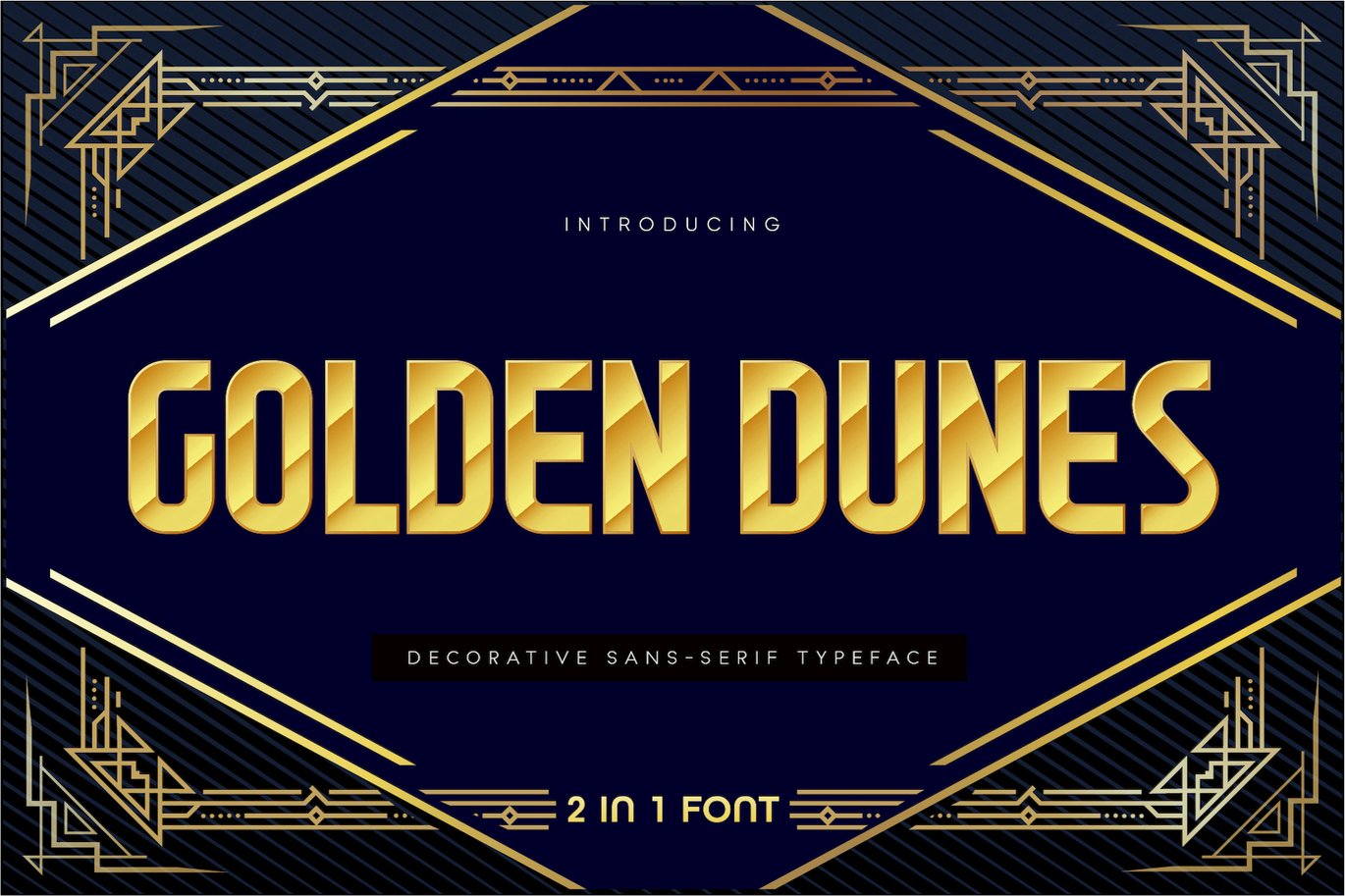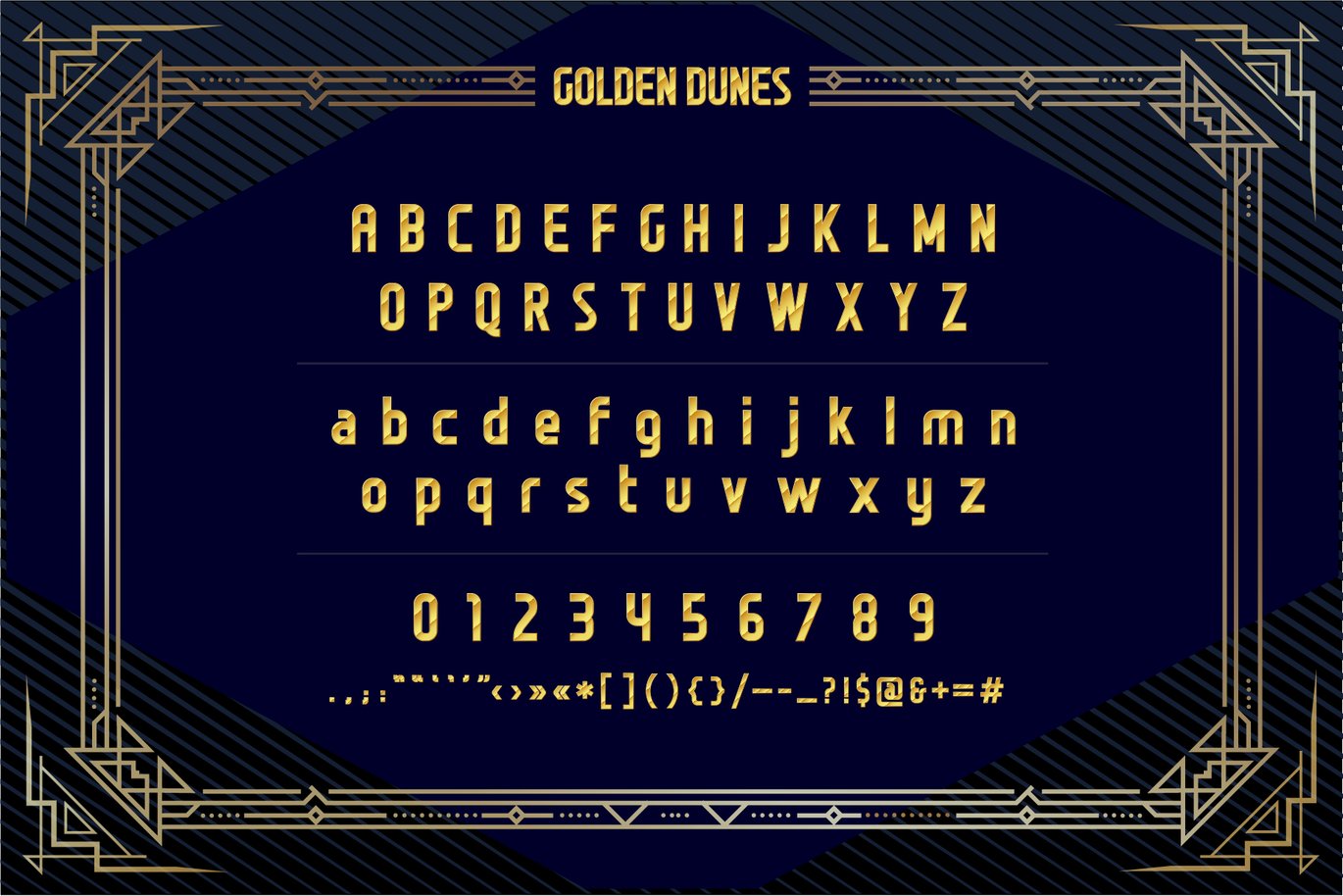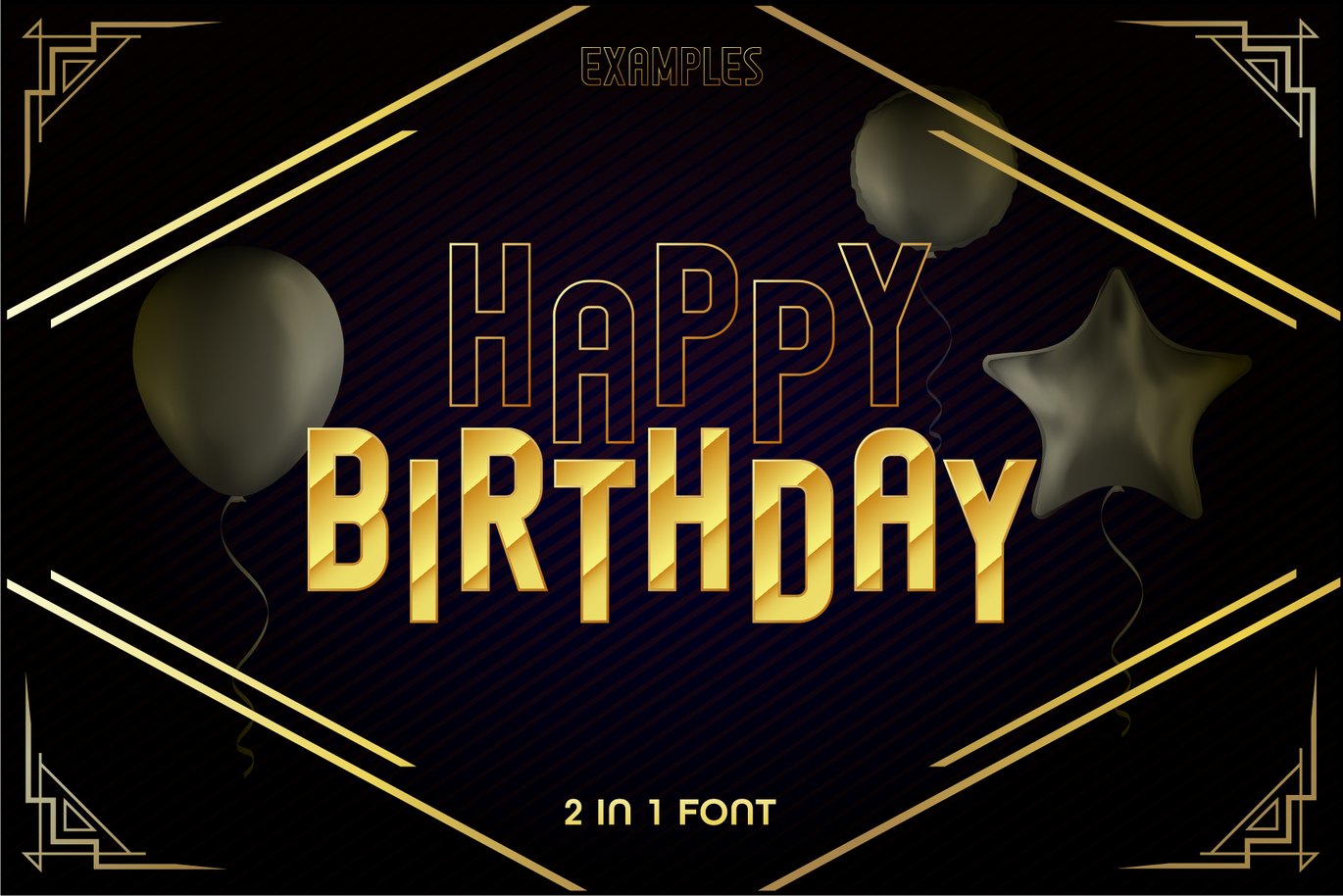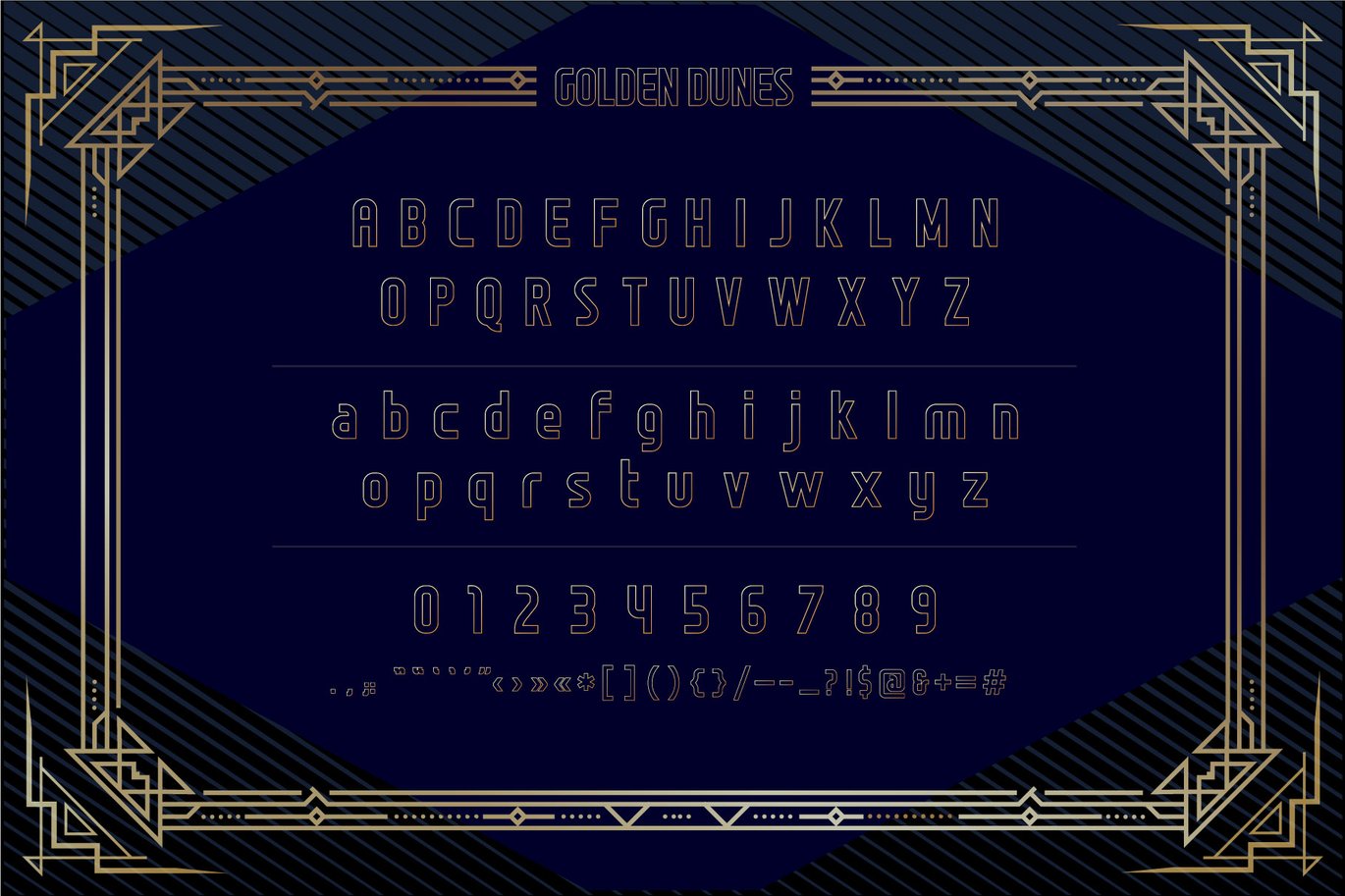
Golden Dunes – Festive Font
Introducing Golden Dunes – 2 in 1 Regular and Outlined Condensed. Festive, decorative and colorful OTF font for any kind of presentations, posters, invitations or something else where you need to add some bright elements.
- Dunes Gold Regular – Uppercase, Lowercase, Numbers and Symbols included.
- Dunes Gold Outlined – Uppercase, Lowercase, Numbers and Symbols included.